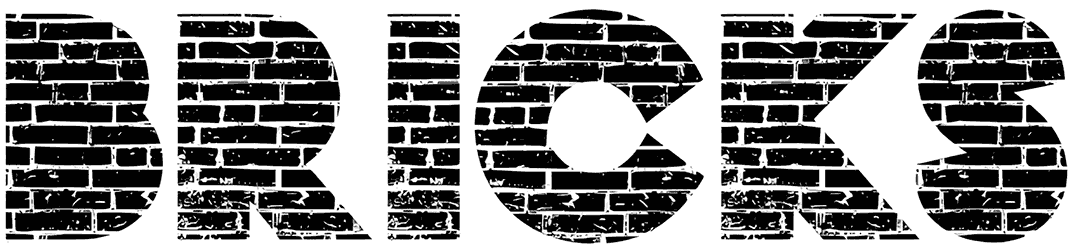
Throw away all the old and repetitive fonts and build your writing with Bricks. By using this brick font with brick texture, you can create a style of visual art and architecture in your designs that gives them a different look.
This monogram font does not include lowercase letters and numbers, and the juxtaposition of uppercase letters can create a pleasant look in logos, classic cafes, and album covers.
Four versions.